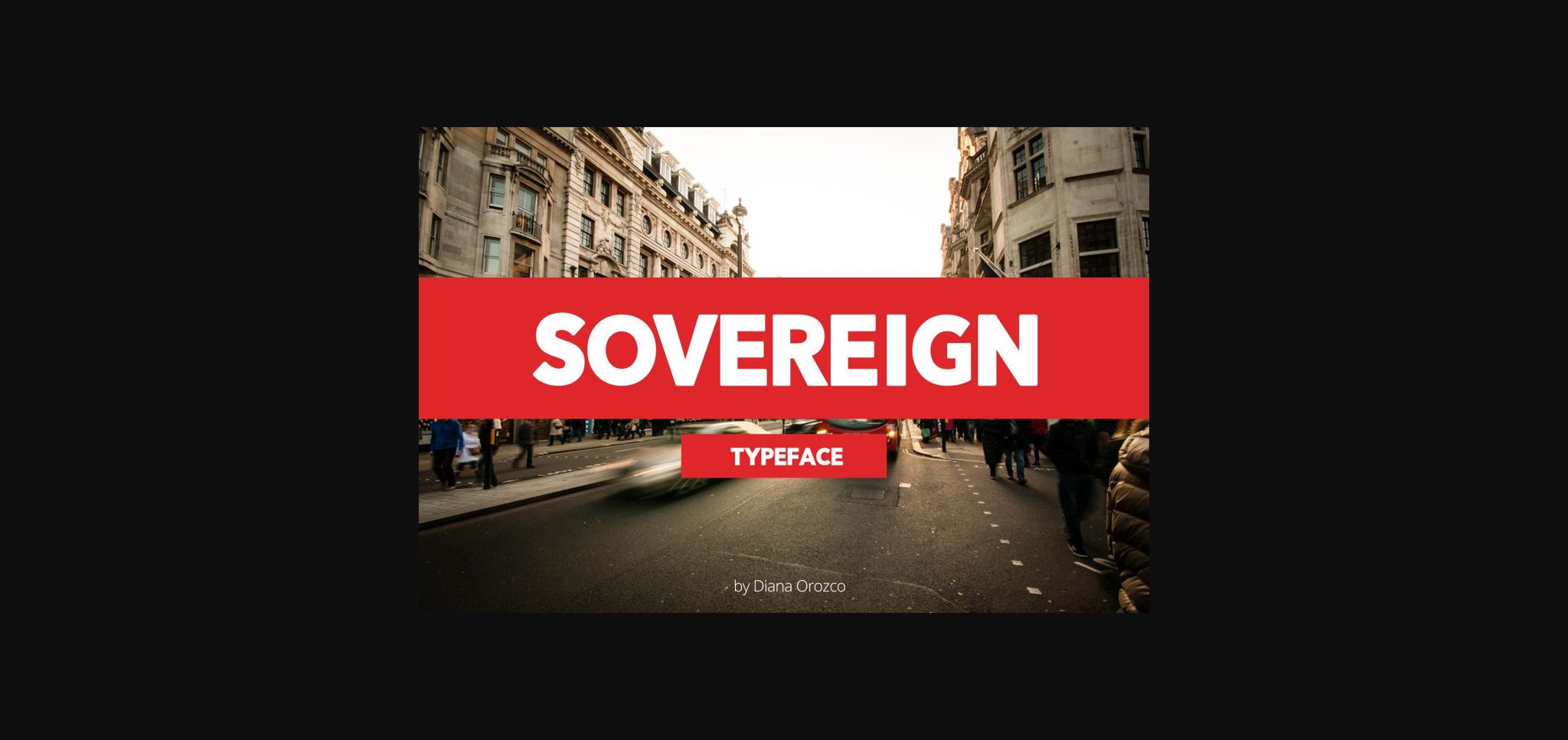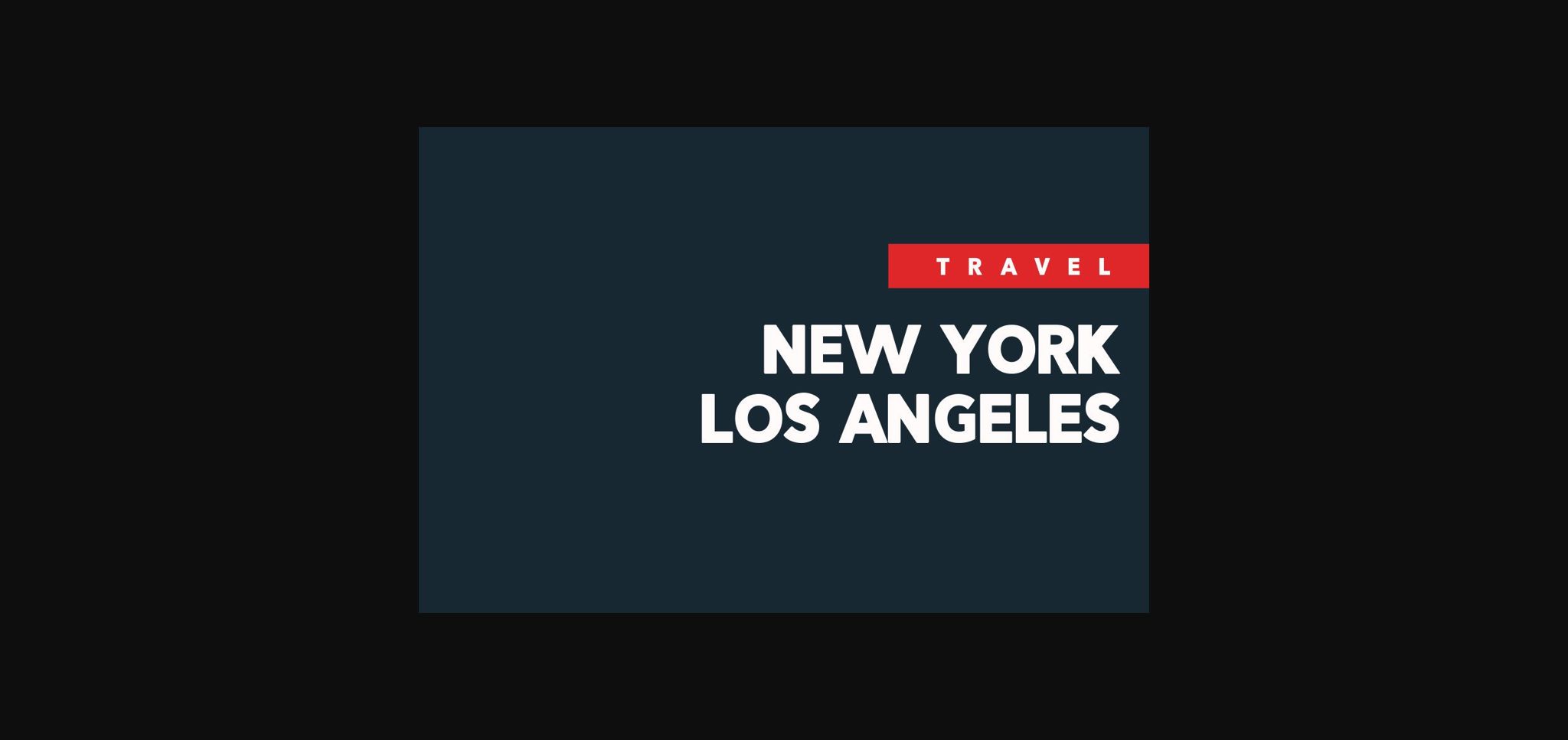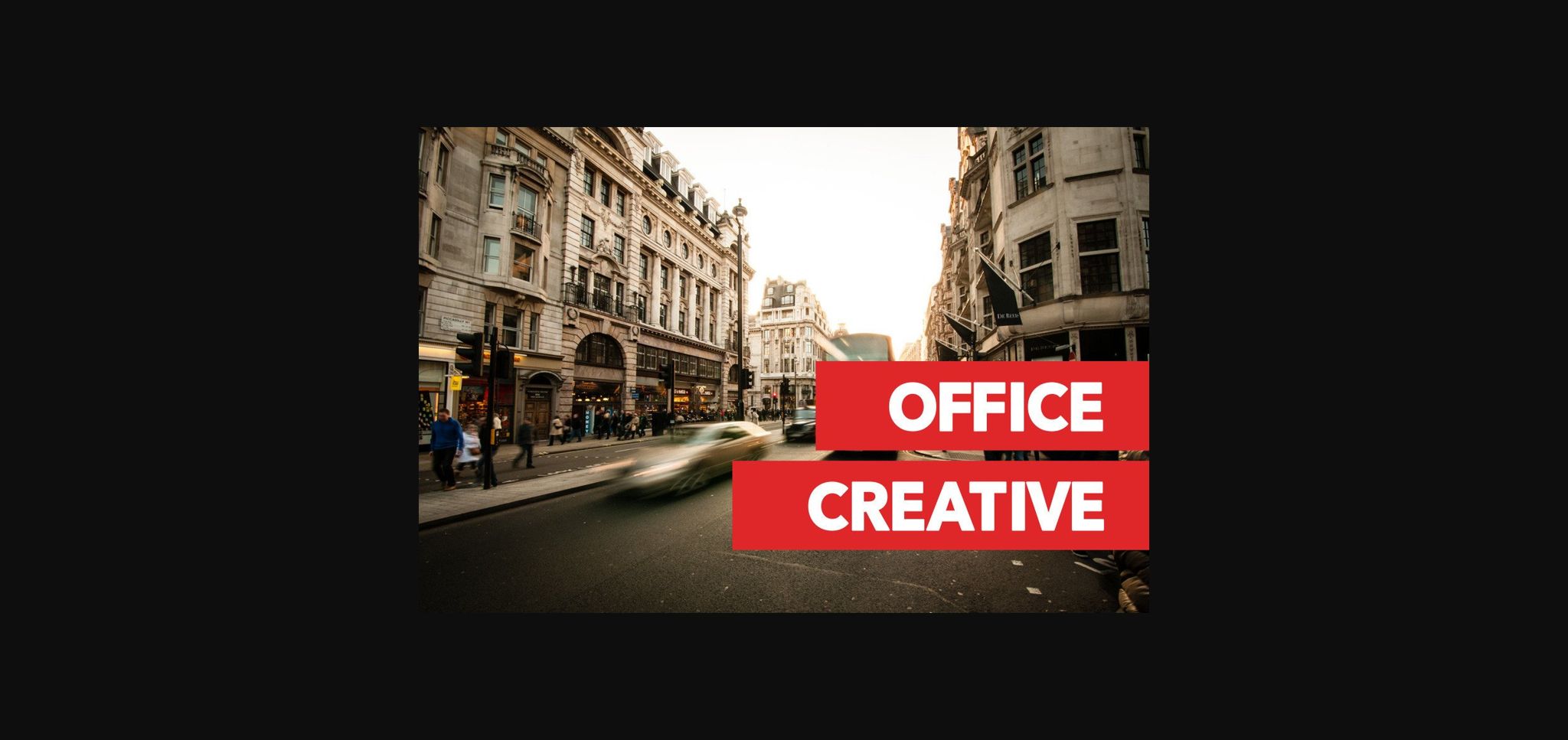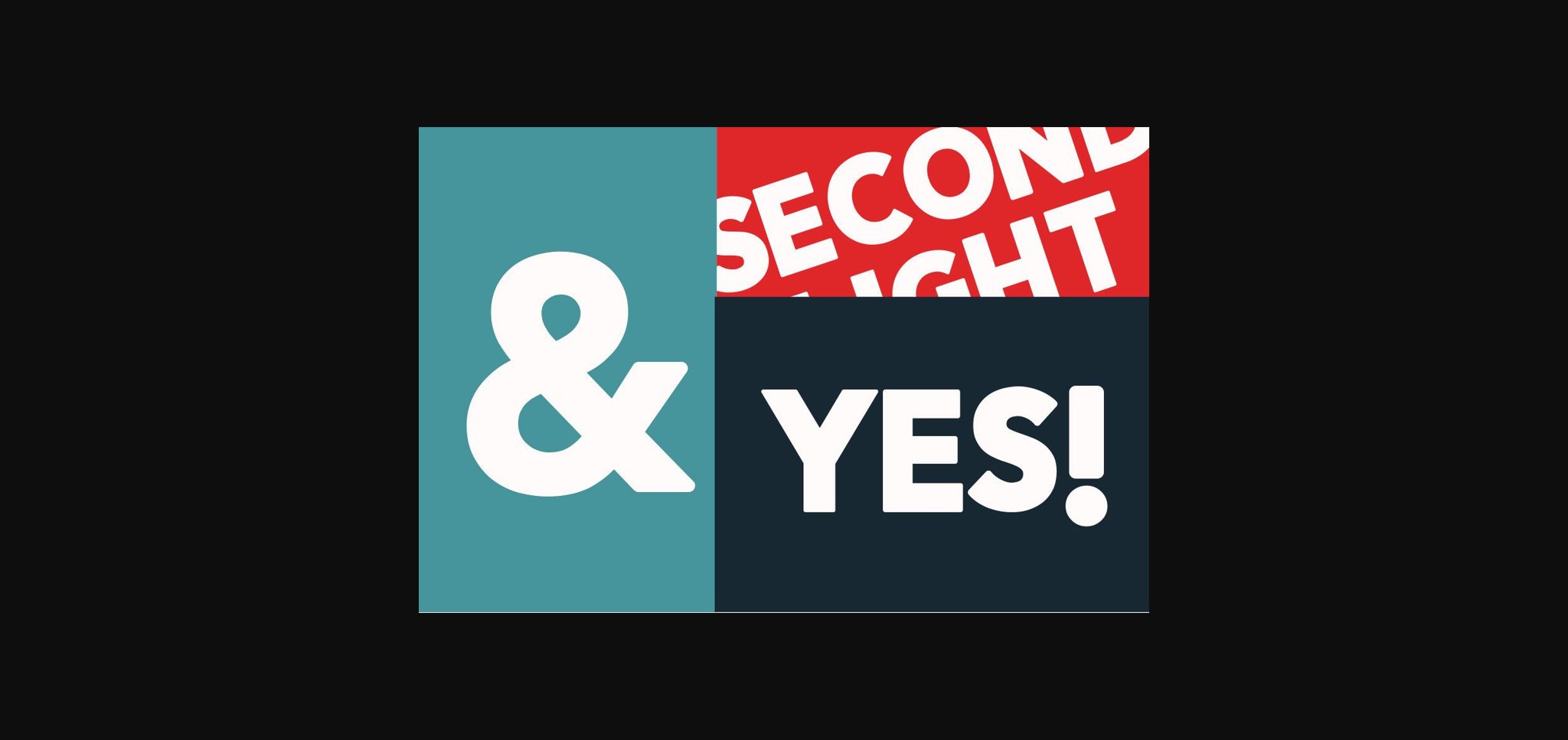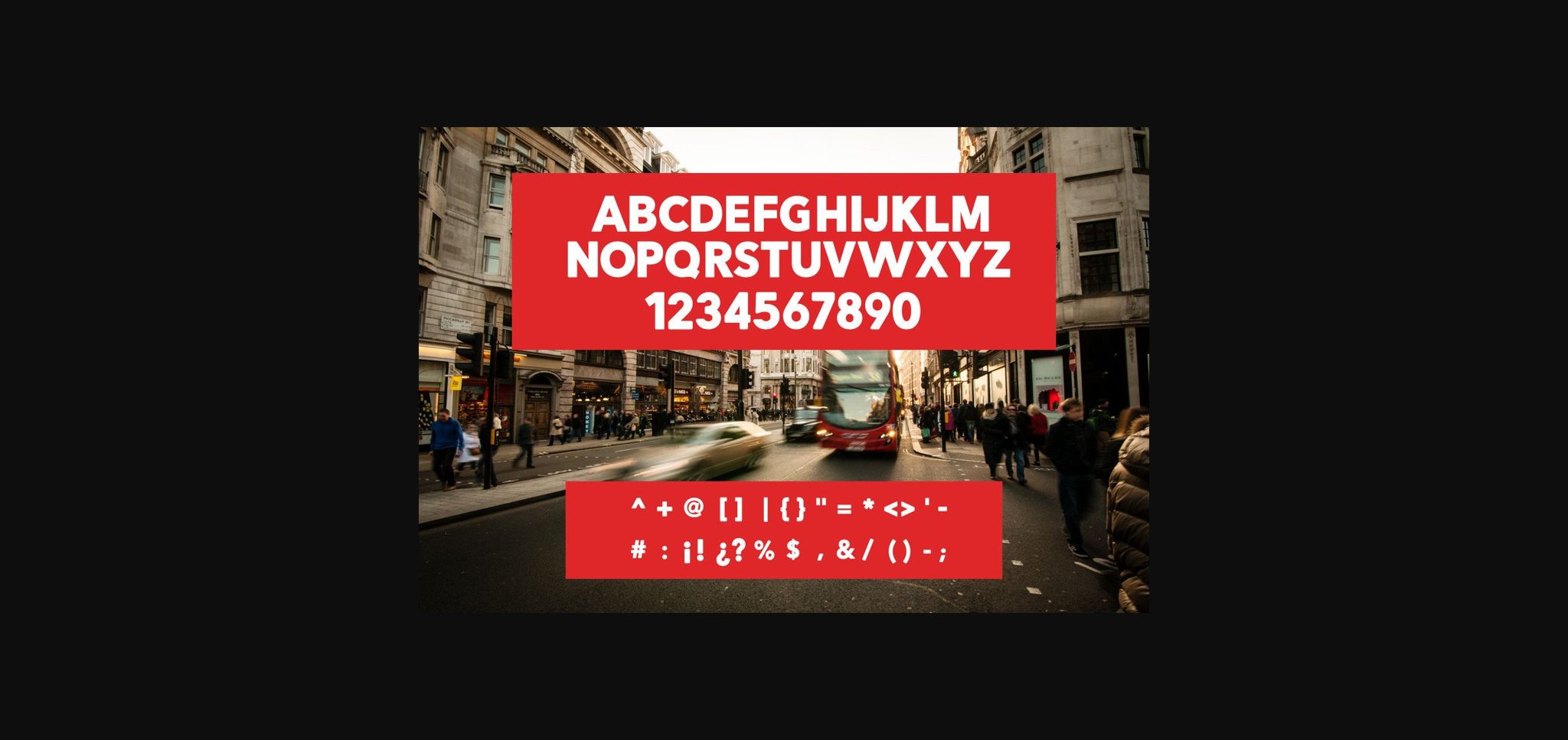
Sovereign Font
About Sovereign Font
Sovereign is a classic and elegant sans serif font. Trendy and stylish, this font will elevate each of your creations.